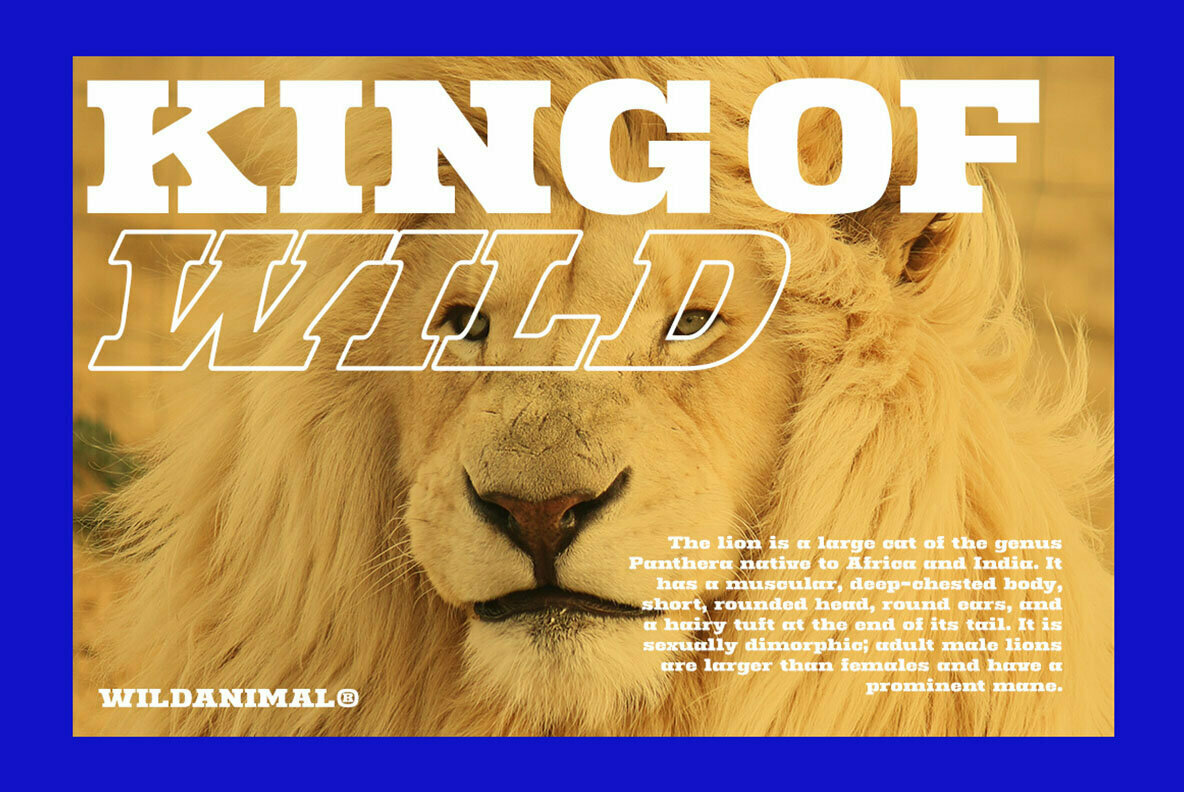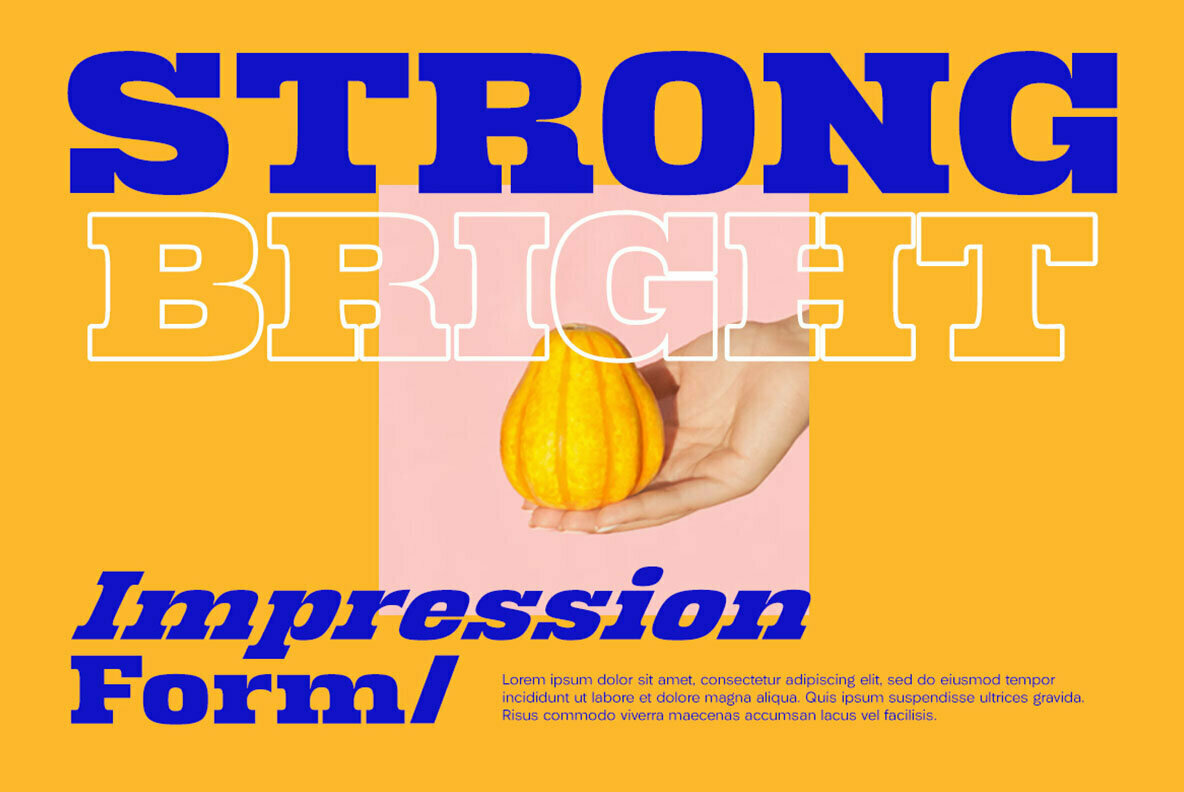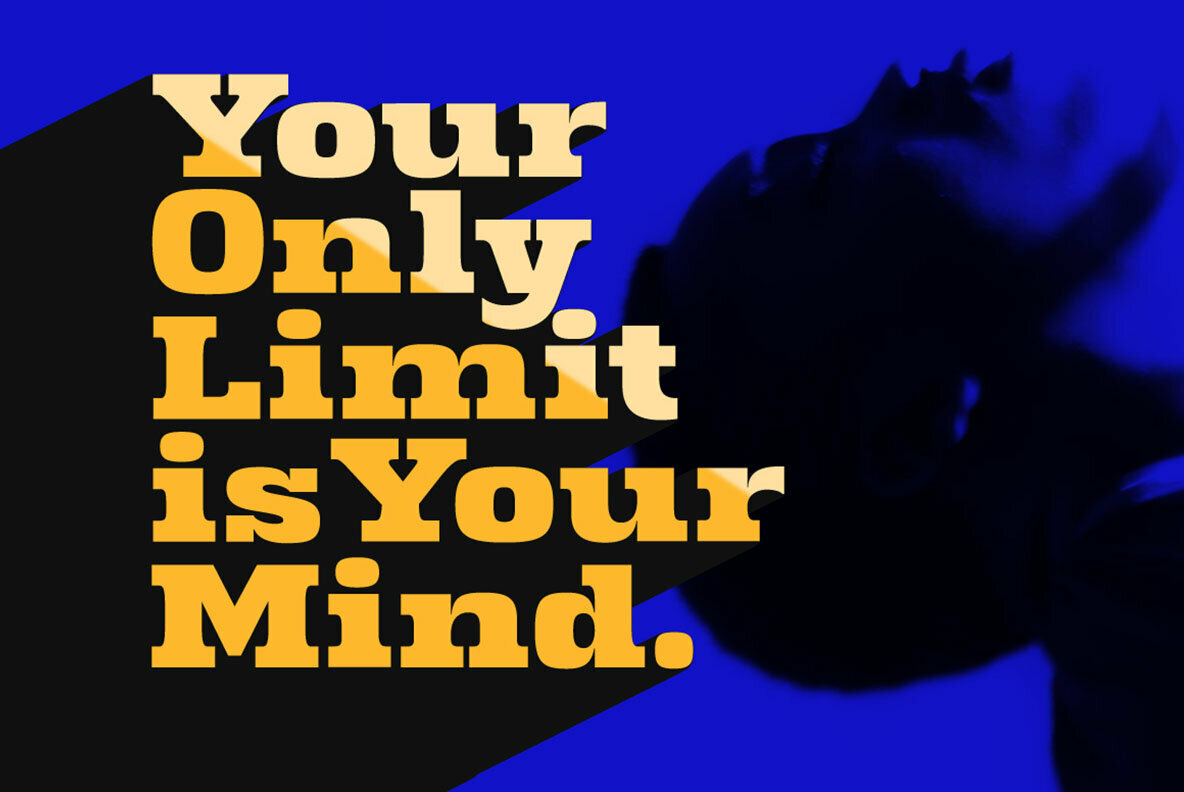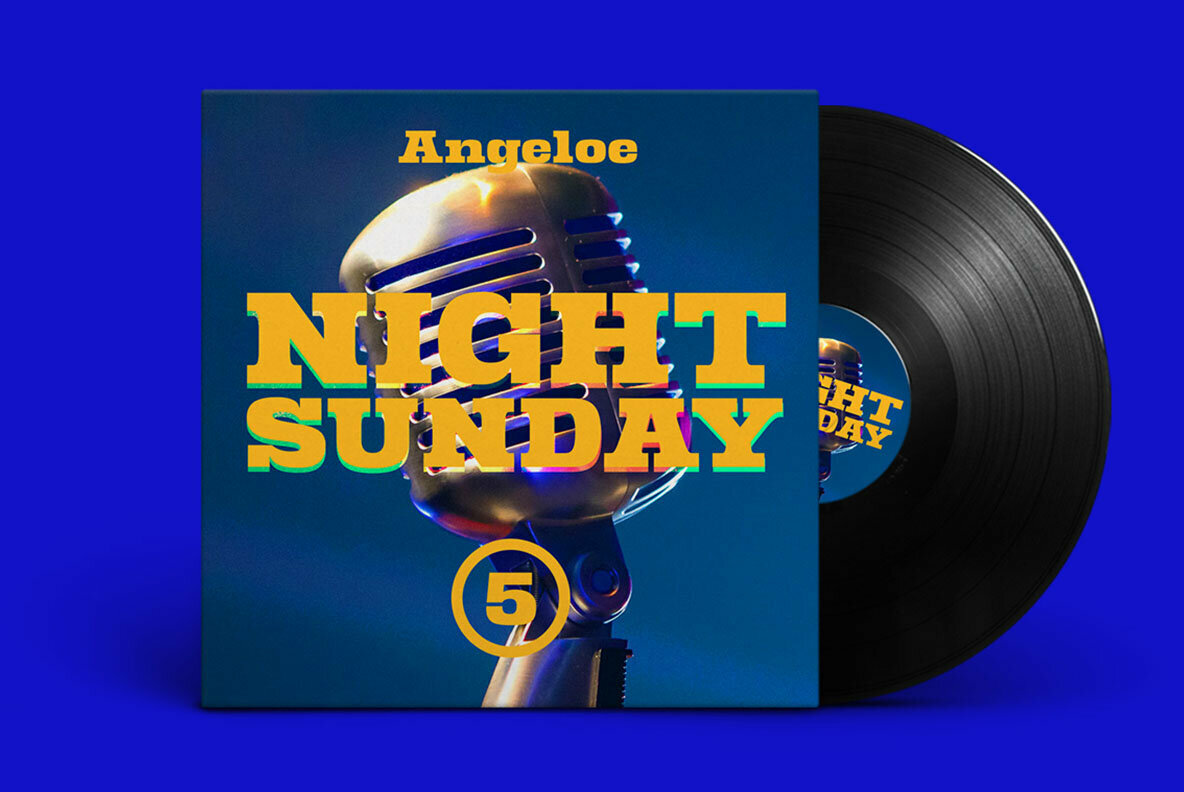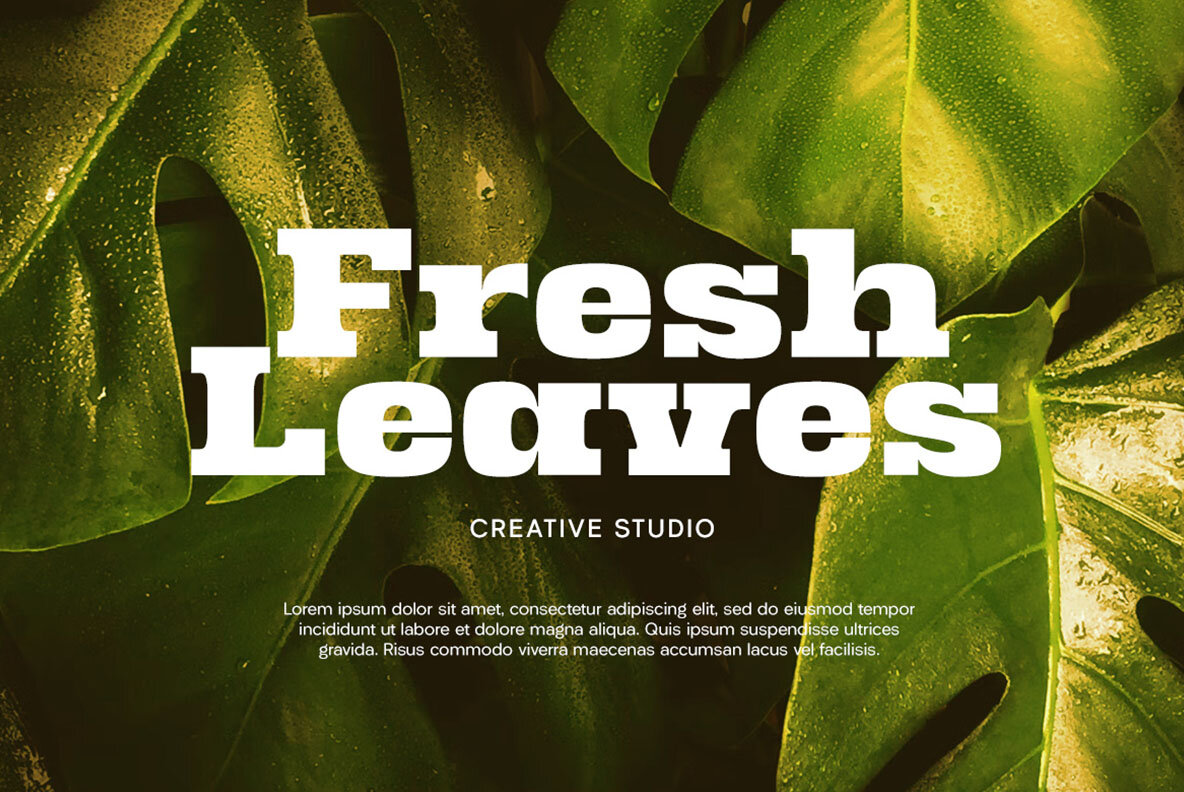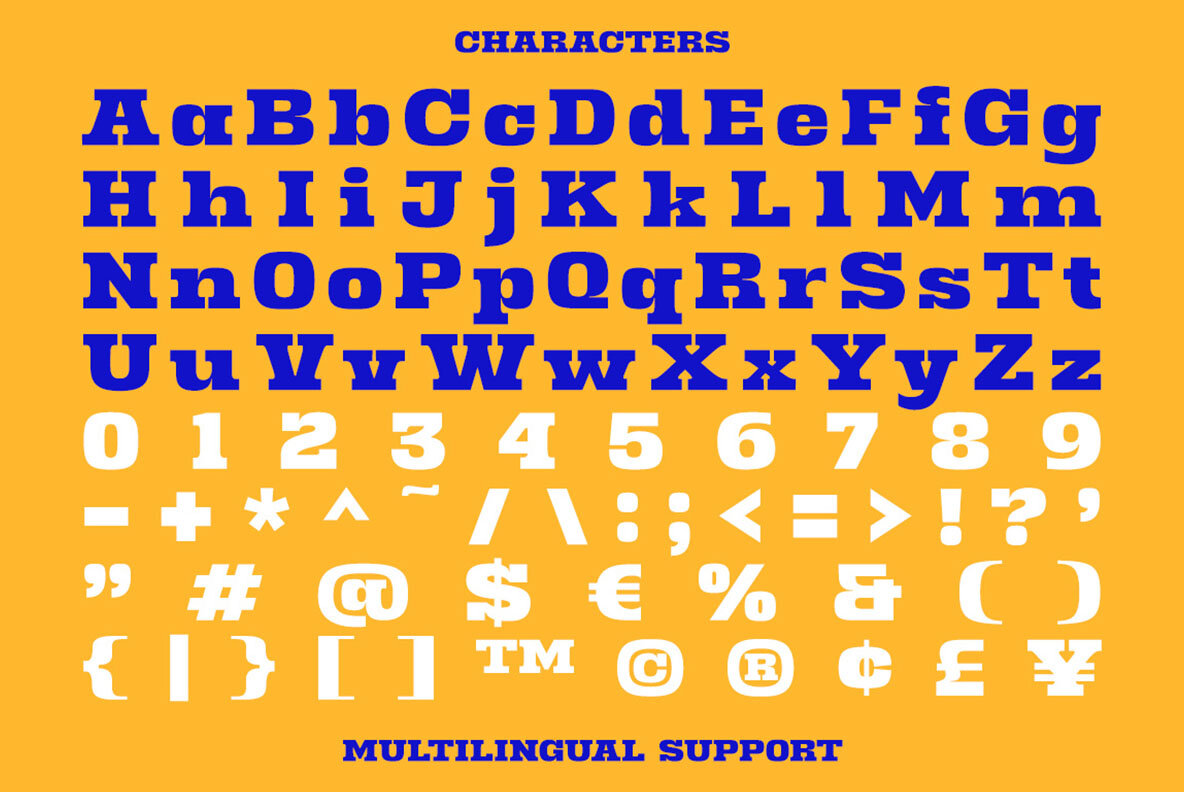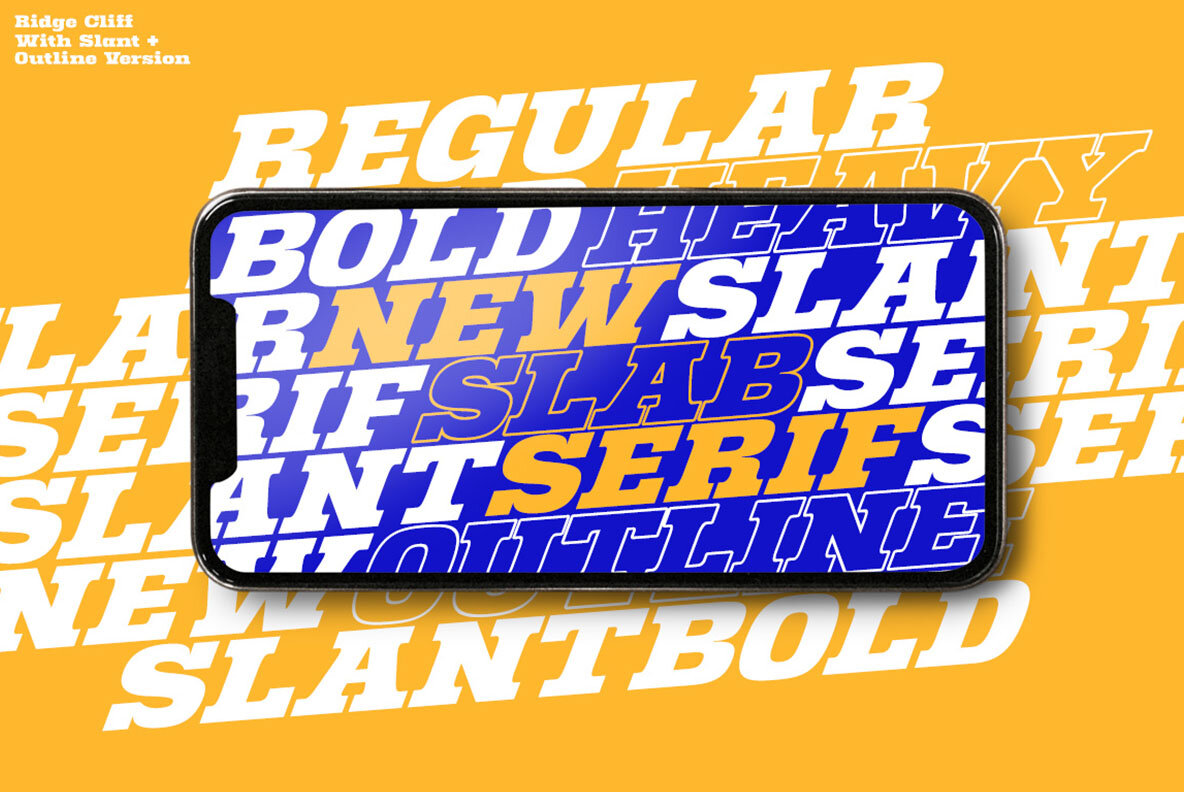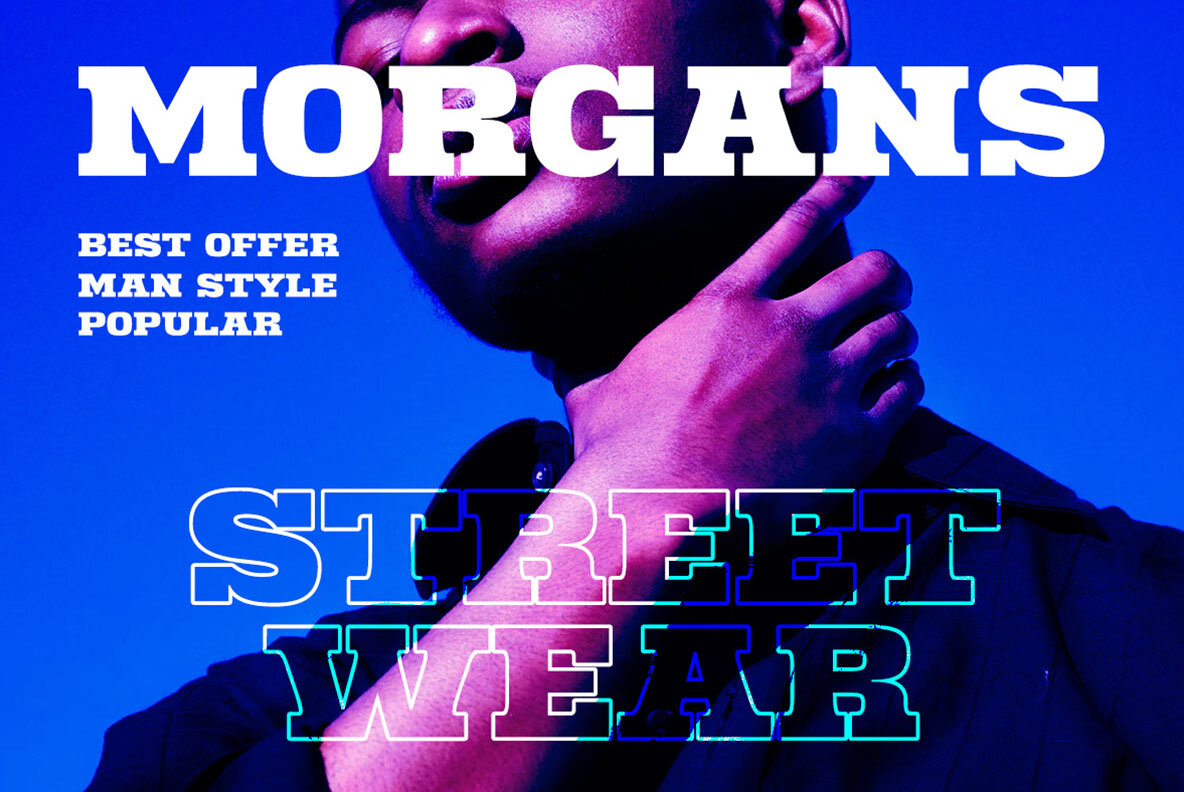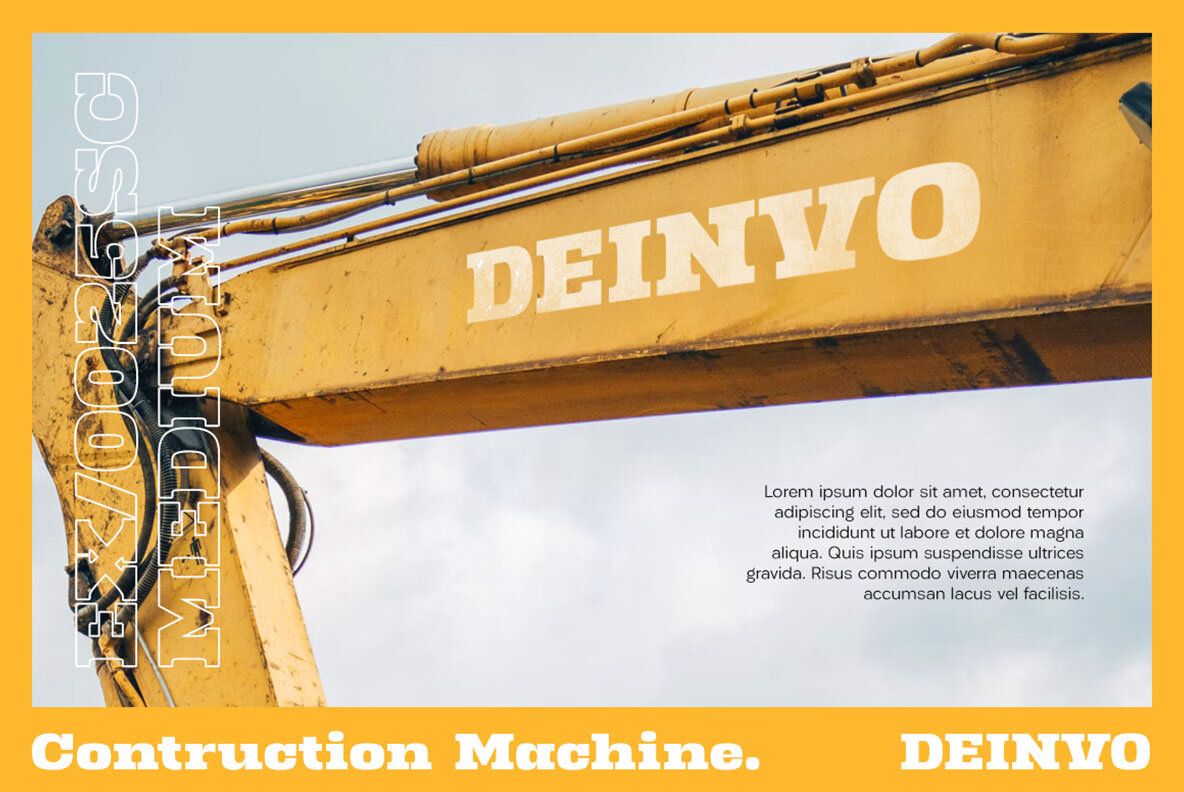
Ridge Cliff Font
Ridge Cliff embodies the robust qualities of slab serif typefaces, delivering a pronounced presence in every application. This font is expertly crafted to enhance logos, headlines, and signage, infusing them with a distinguished and authoritative tone. Ridge Cliff is equally at home in formal settings, gracing invitations, labels, and packaging with its profound sense of style. Whether you're designing for magazines, books, or advertising purposes, Ridge Cliff ensures your message is conveyed with clarity and elegance. Its versatility extends to fashion, makeup, stationery, and even greeting cards, offering a cohesive aesthetic across various media. Features:Ridge Cliff: Bold Slab Serif for Impactful Designs